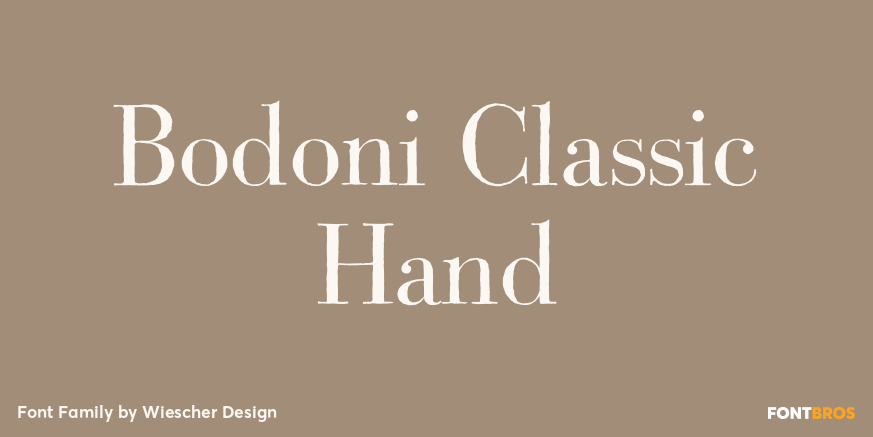
Bodoni Classic Hand
About Bodoni Classic Hand
I became interested in designing Bodoni Classic because of a lazy graphic designer at Jacques Damase publishing house. He had to change a single letter on a bookcover about J. B. BODONI. The French call him Jean Baptiste instead of Giambattista! And that…